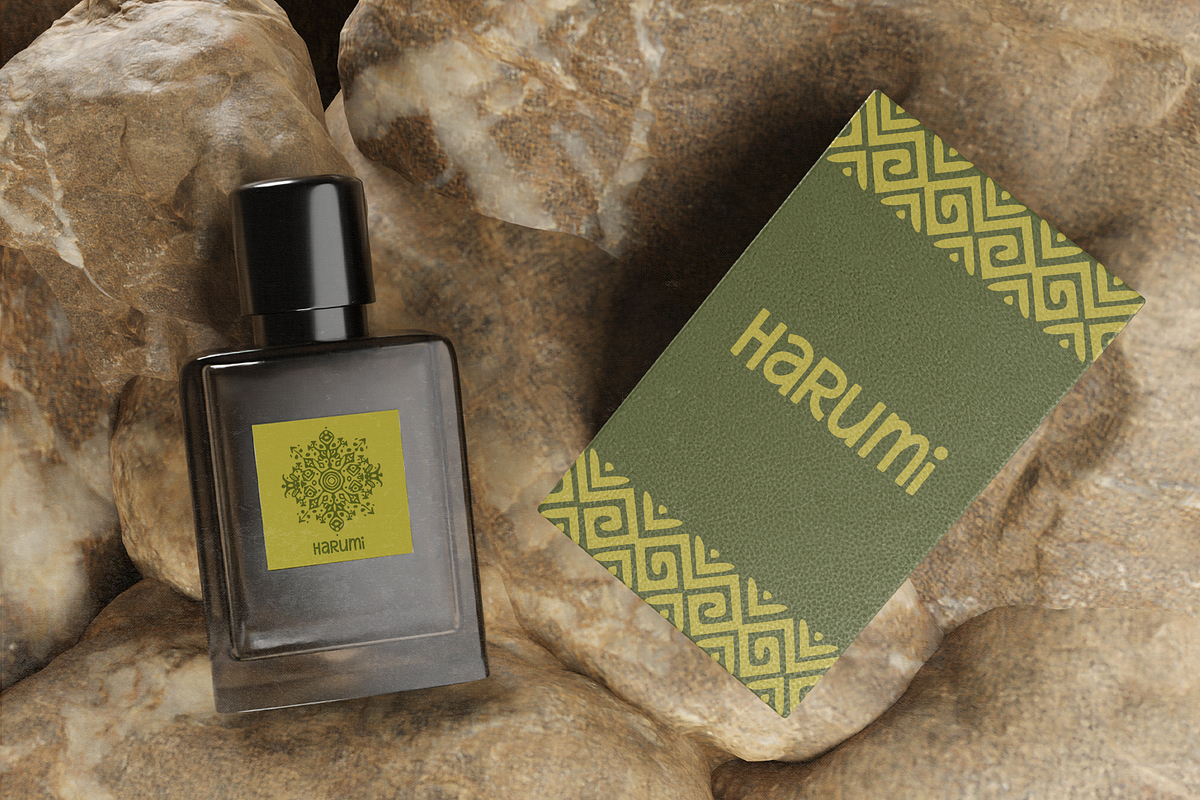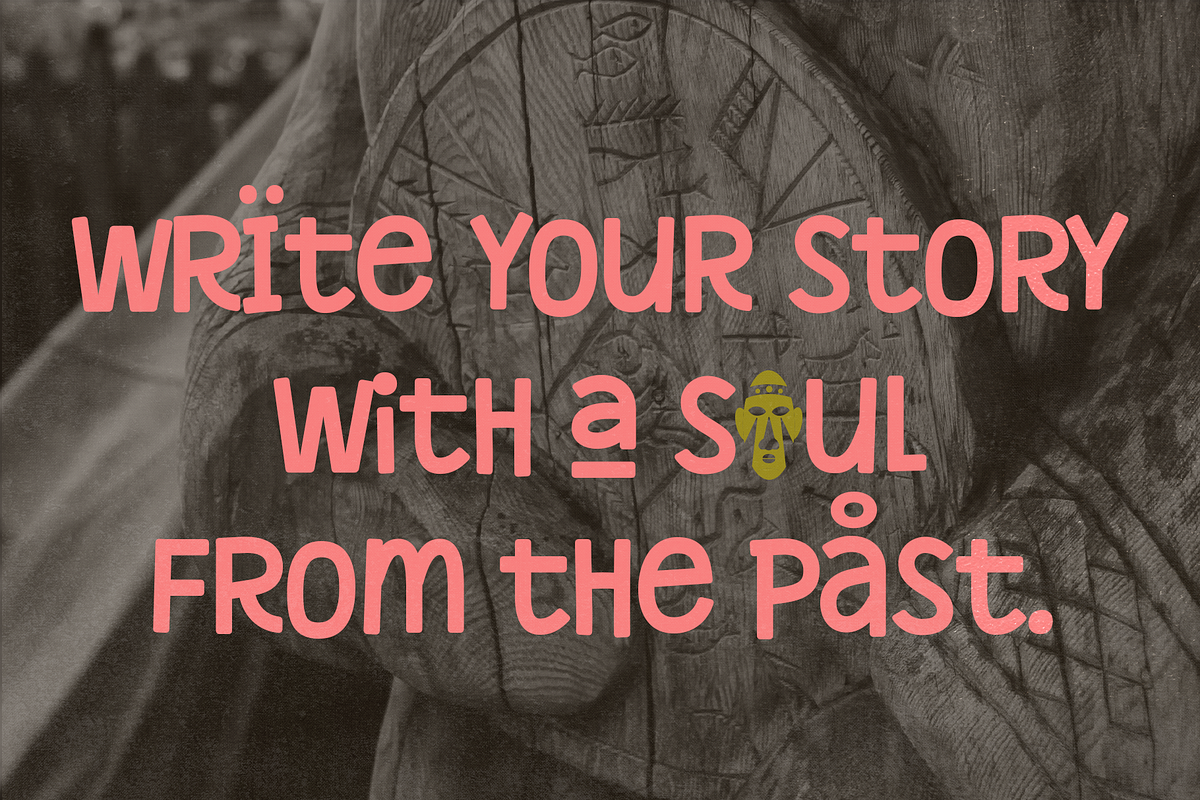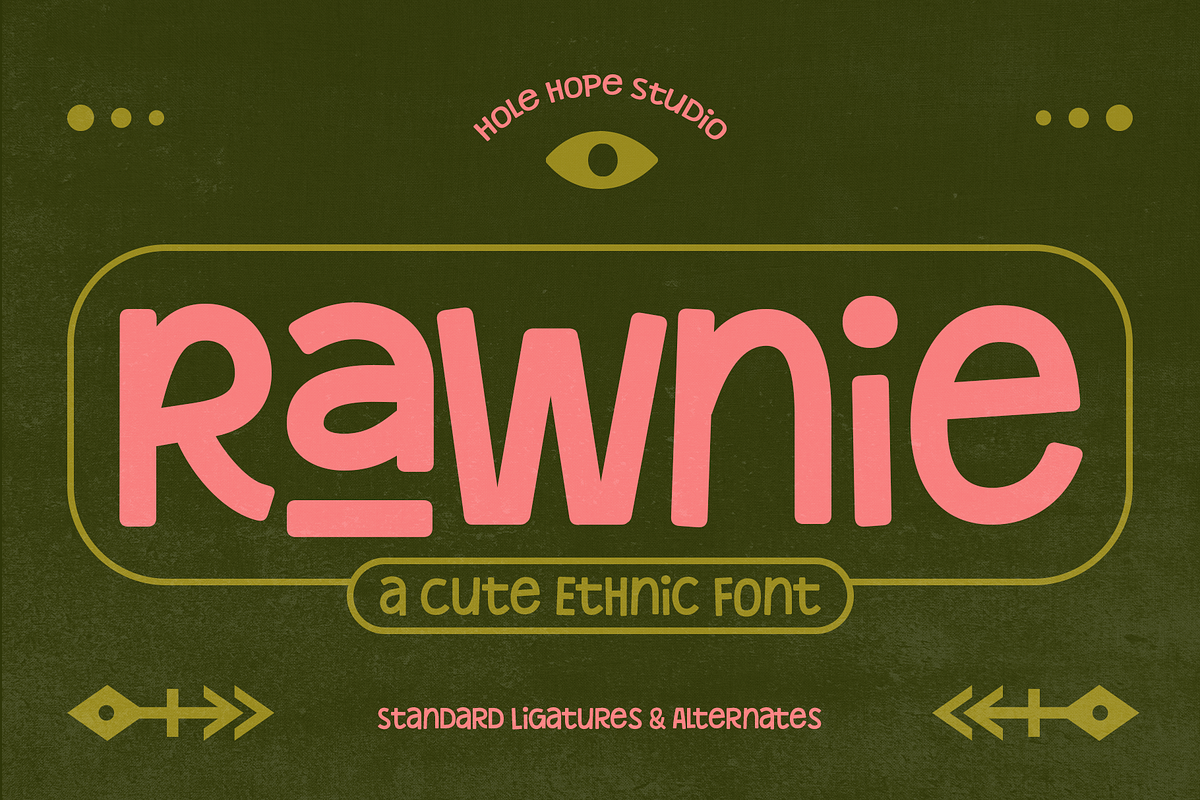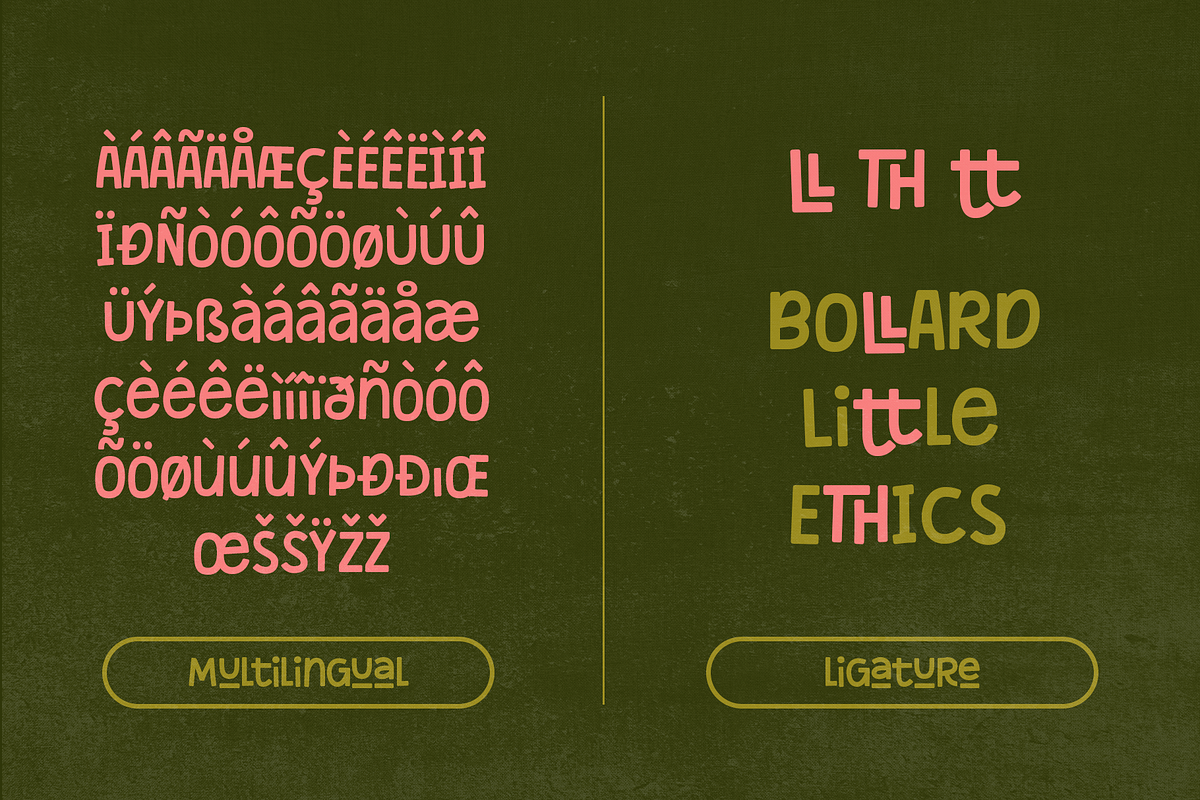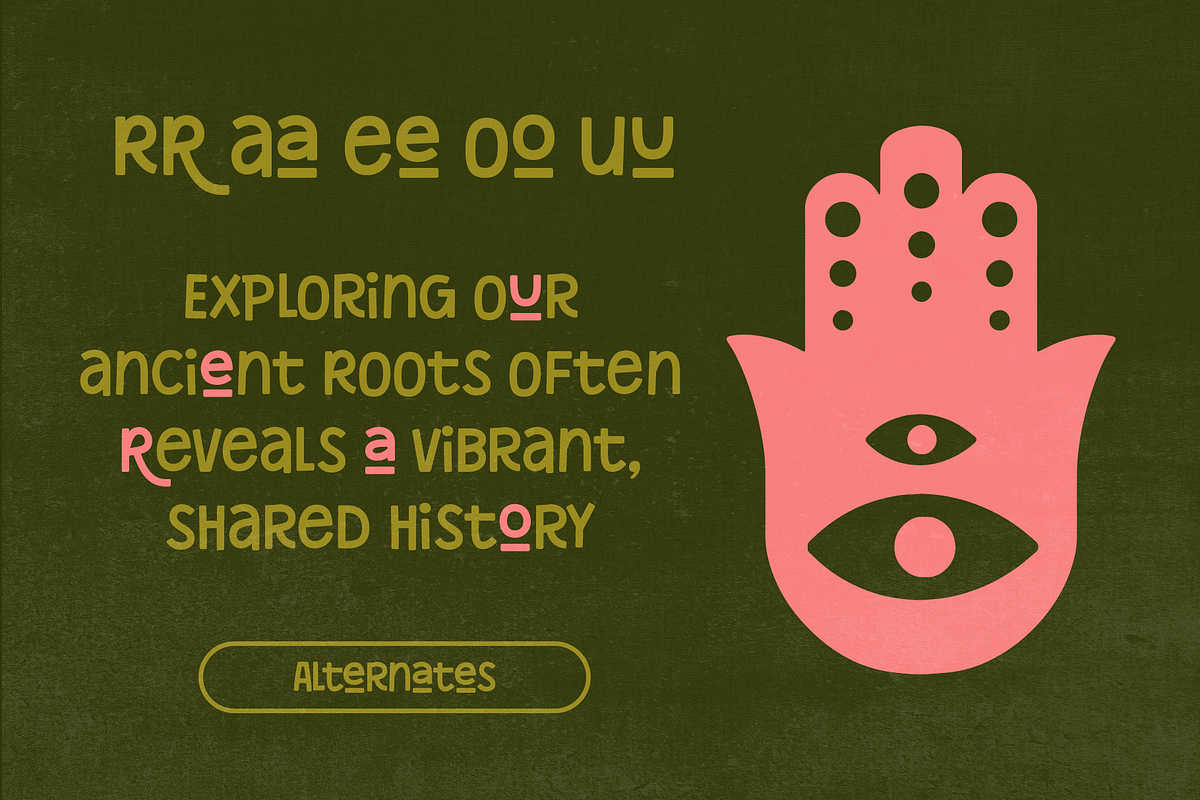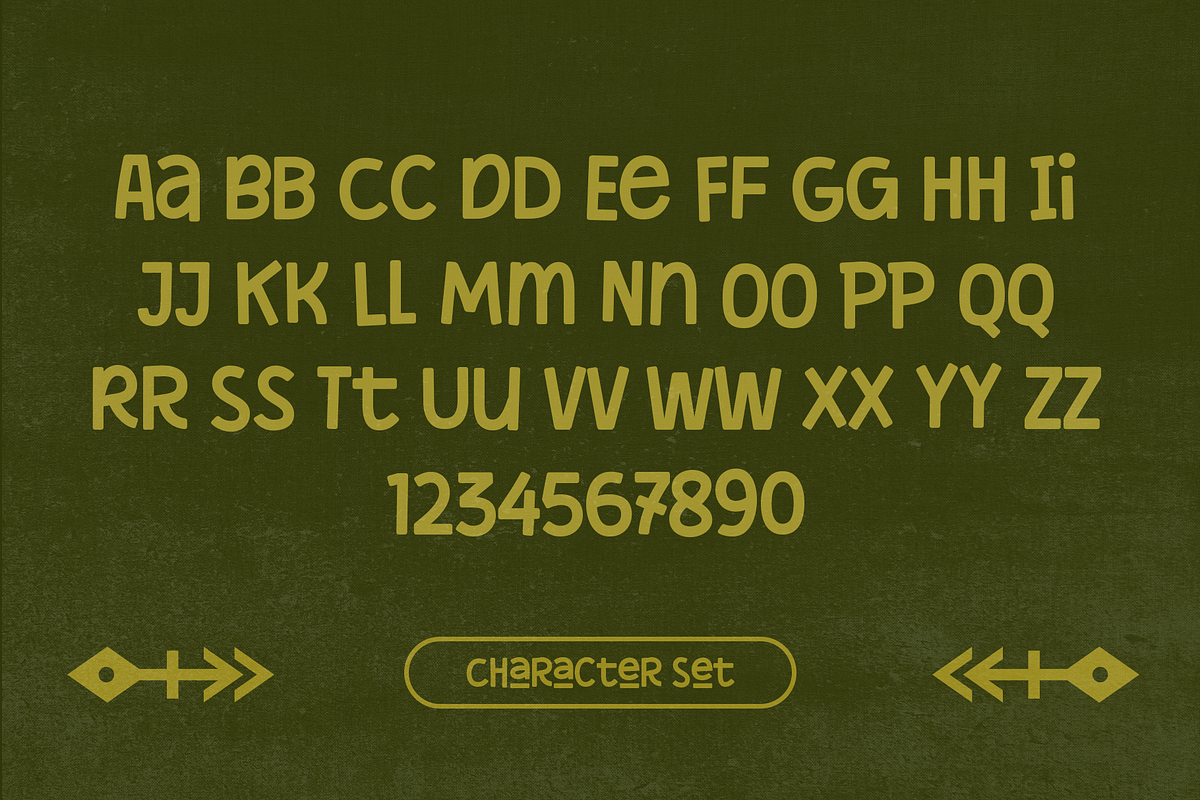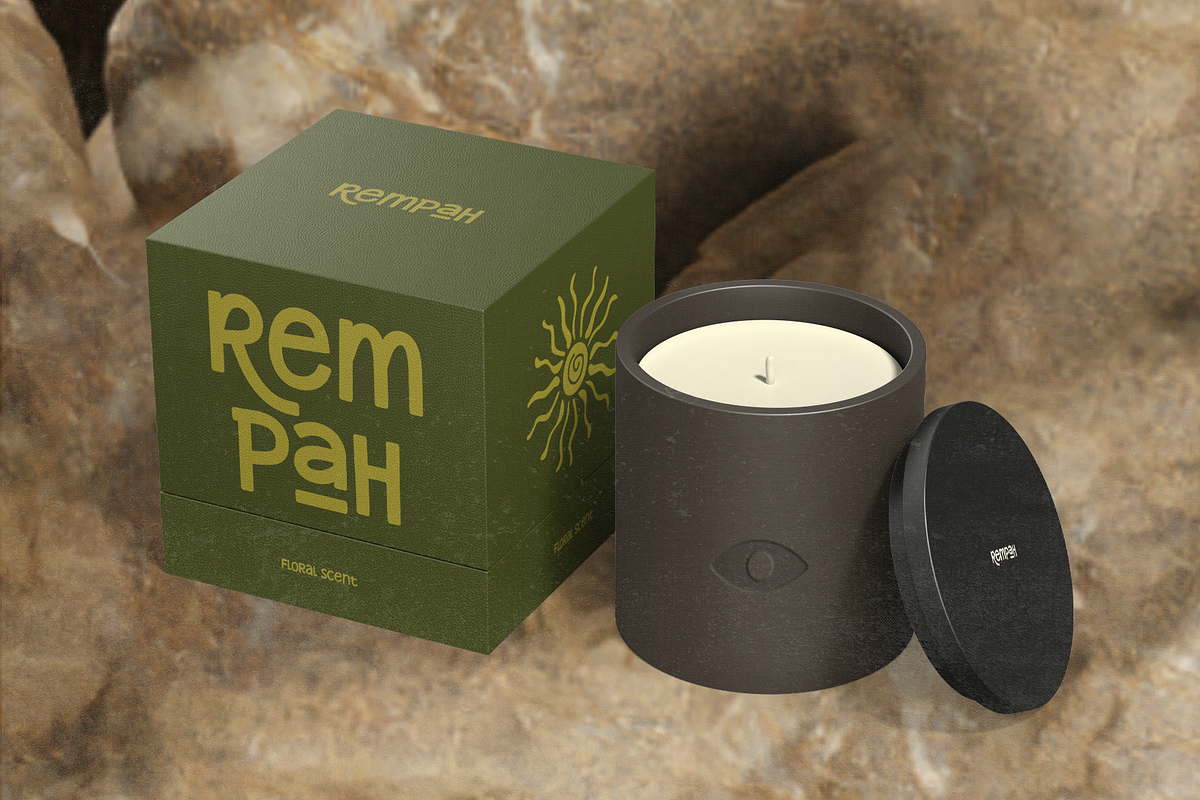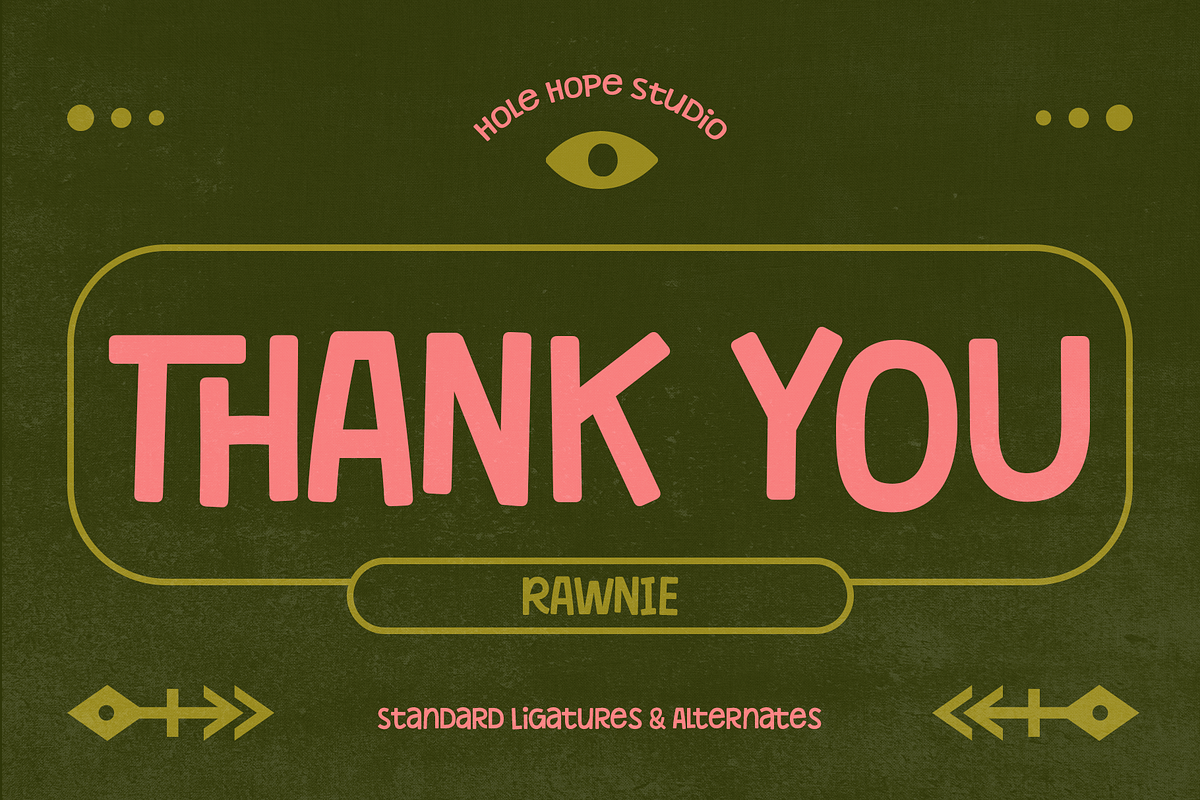
Rawnie – Cute Folk Font
Rawnie is a cute folk display font that brings a touch of handmade warmth to your designs. With its playful curves and cozy hand-drawn feel, Rawnie captures the spirit of traditional craft and modern cuteness in one.
Perfect for branding, invitations, posters, stickers, and craft projects, this font adds a delightful personality that feels friendly and heartwarming. Whether you're designing for a boho theme or a cozy handmade vibe, Rawnie makes every word feel special and full of charm.